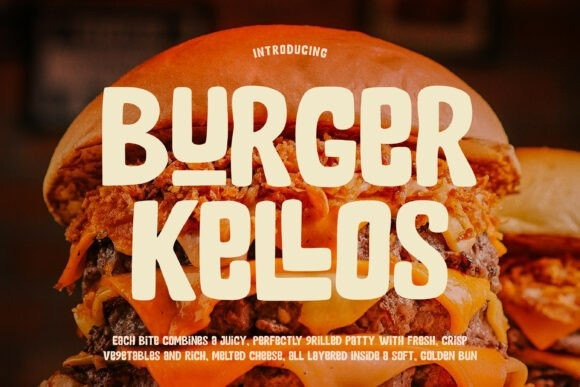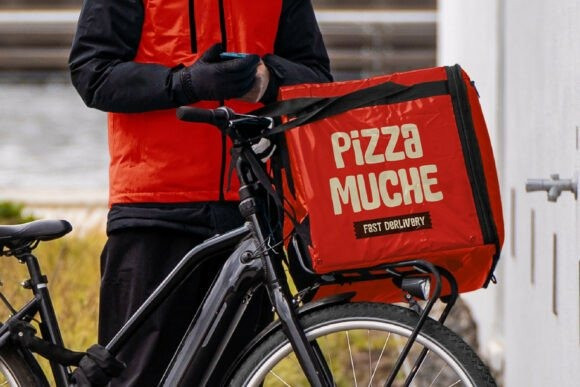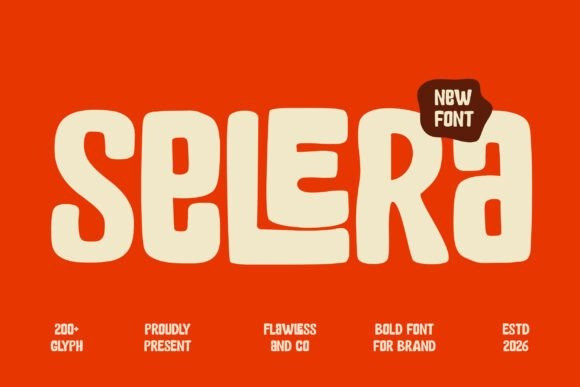
Selera Font
Selera Font is a bold display typeface specially crafted to bring strong flavor and visual appeal to food branding. With its thick letterforms, smooth curves, and confident personality, Selera creates an eye-catching look that feels delicious, friendly, and full of character. Its bold style helps menus, packaging, and promotional materials stand out instantly, making it perfect for culinary brands that want to leave a memorable impression. Whether for restaurants, cafés, snacks, or beverage products, Selera delivers a modern and appetizing typographic style.